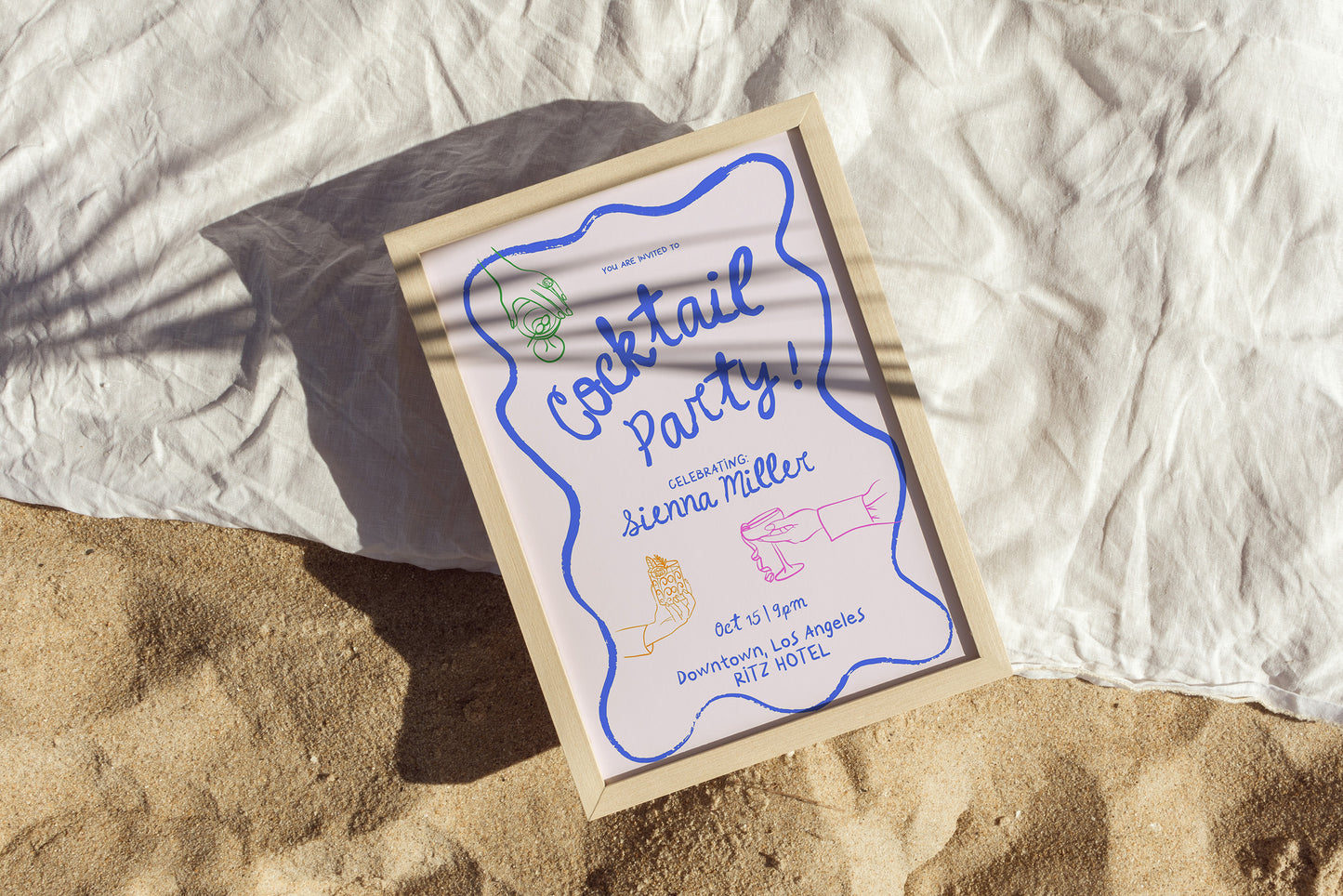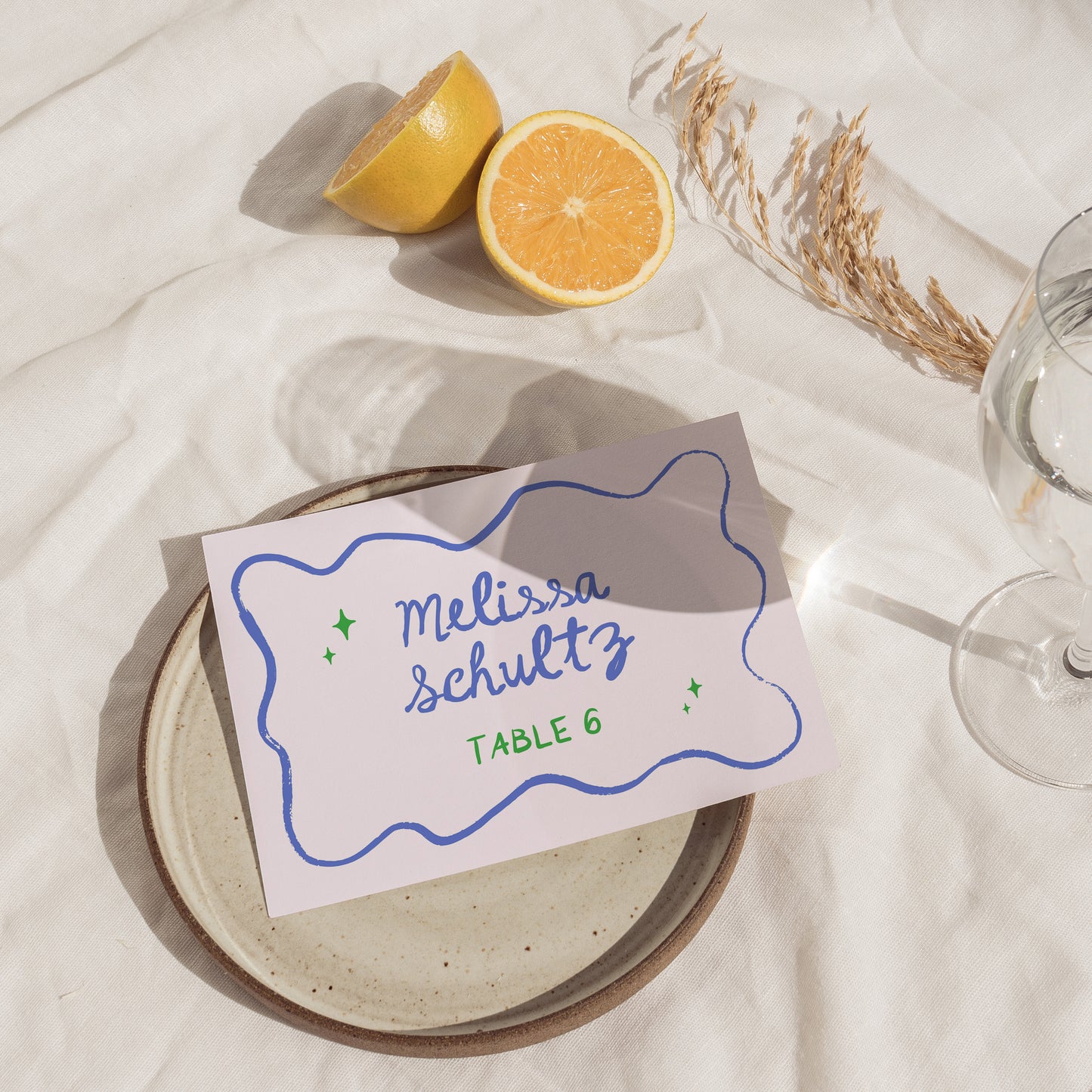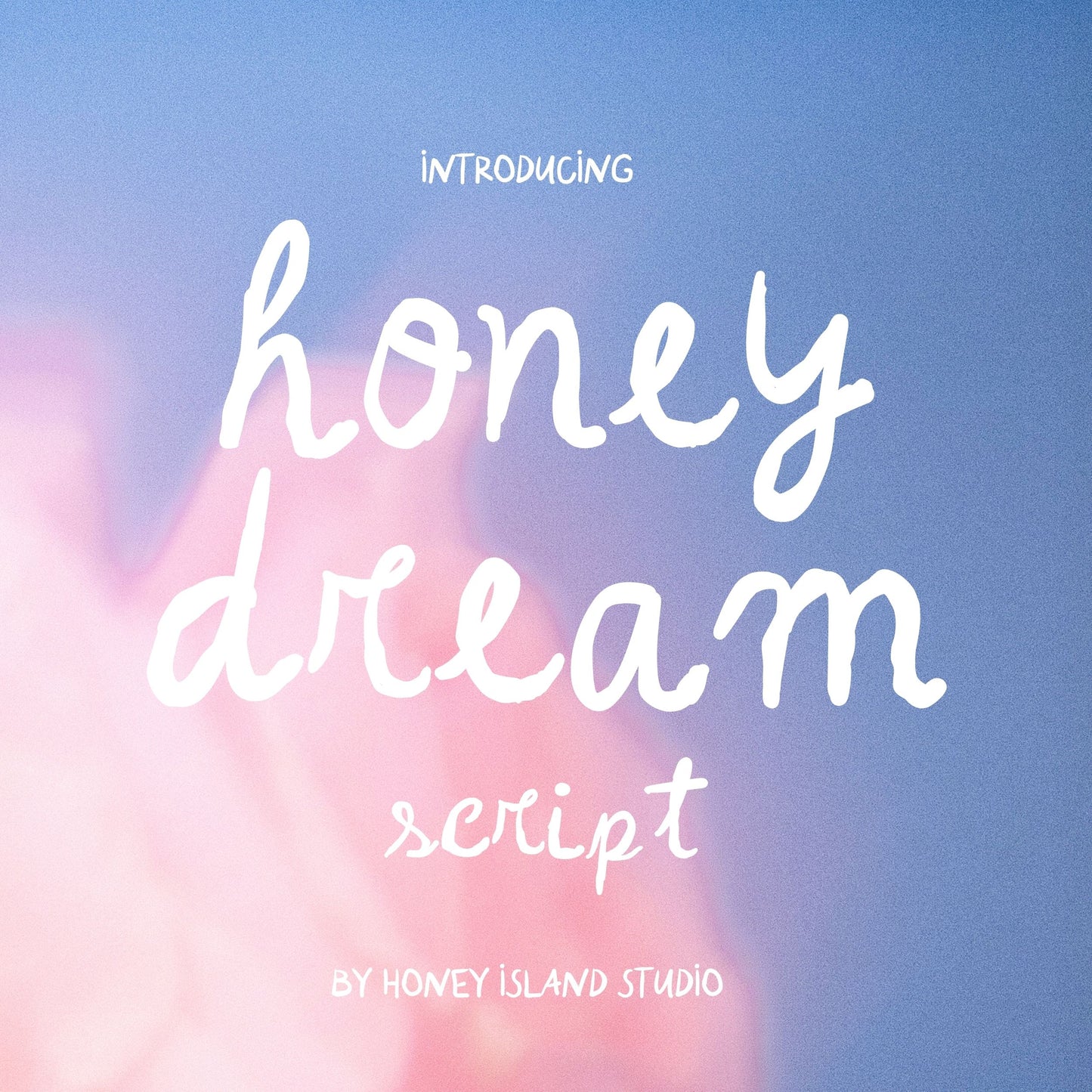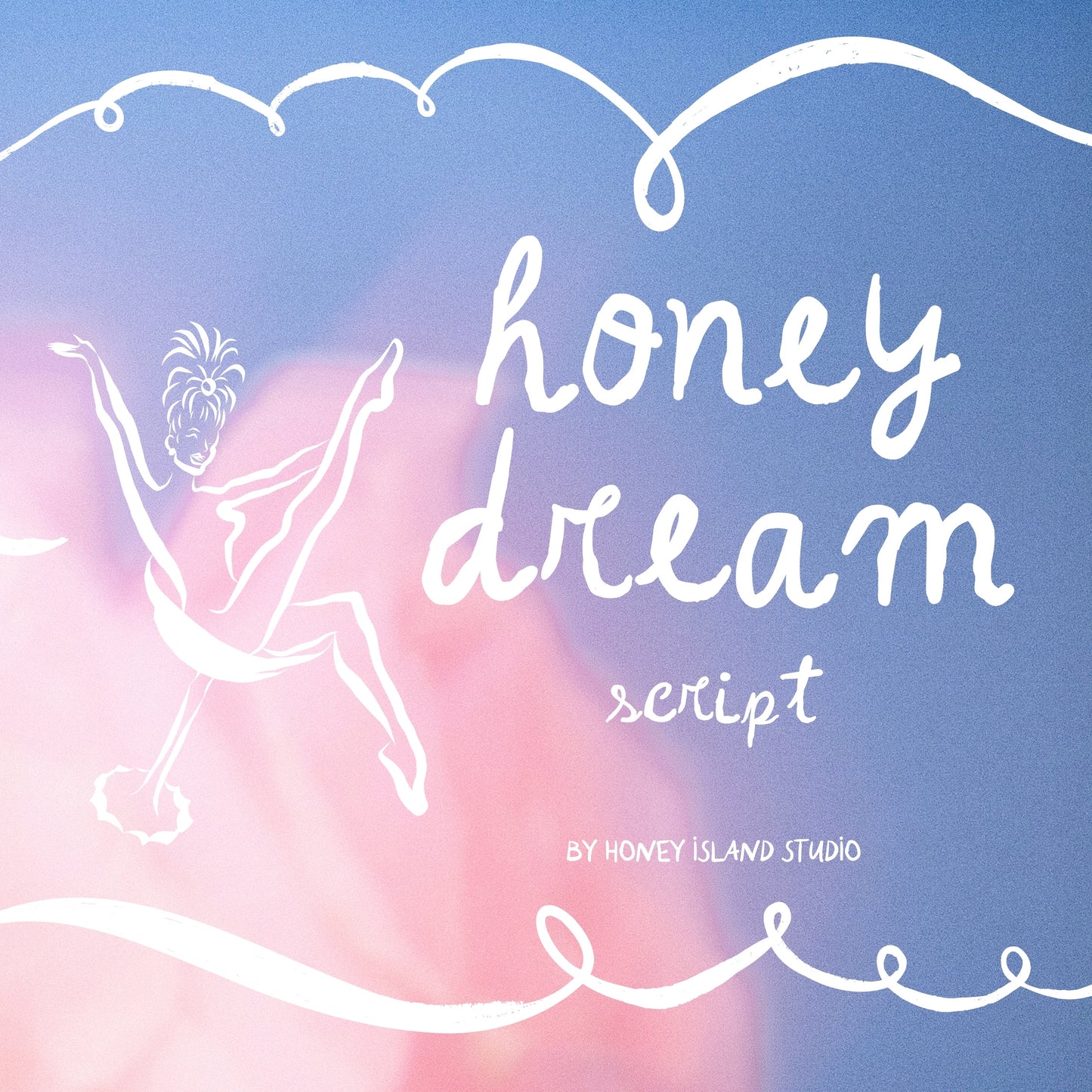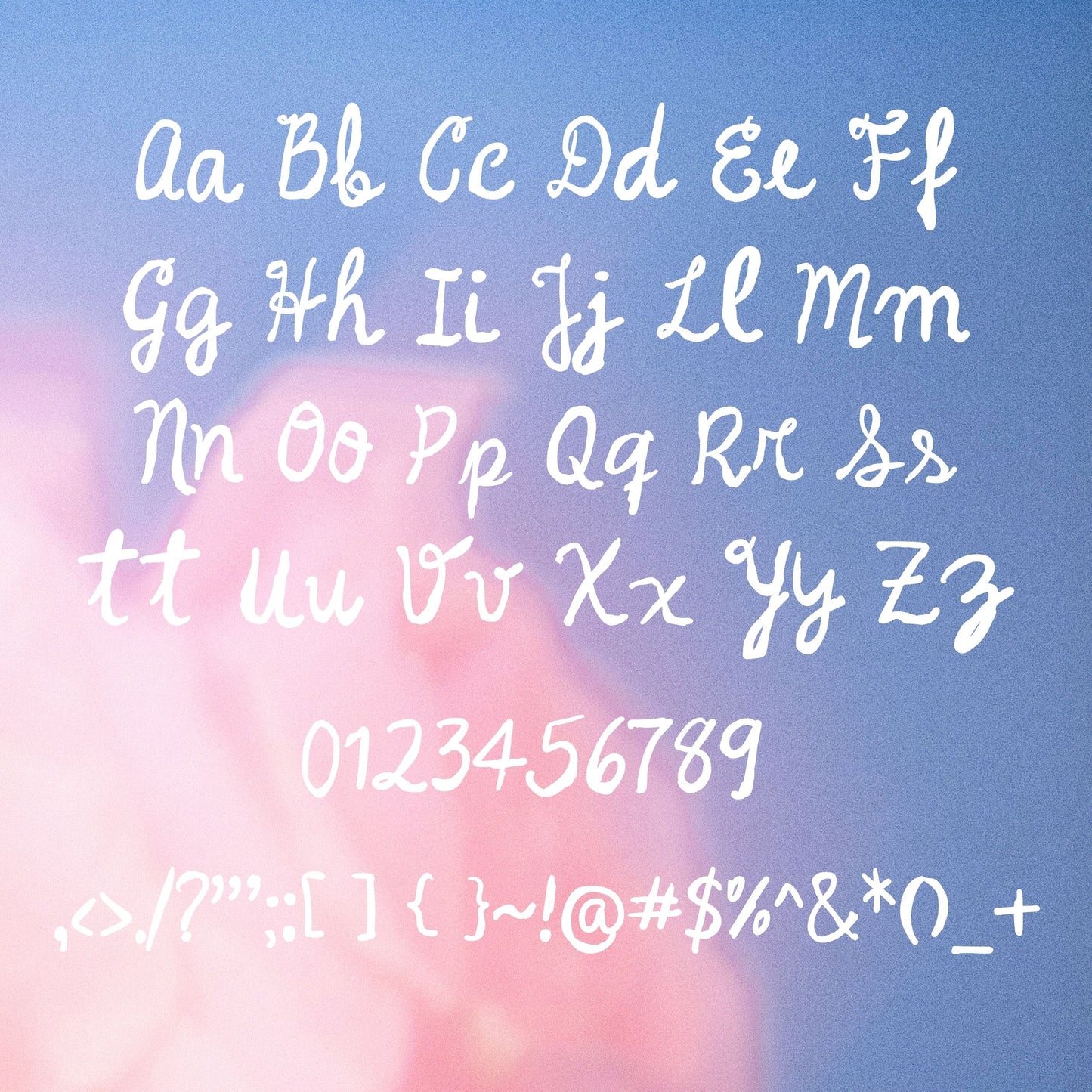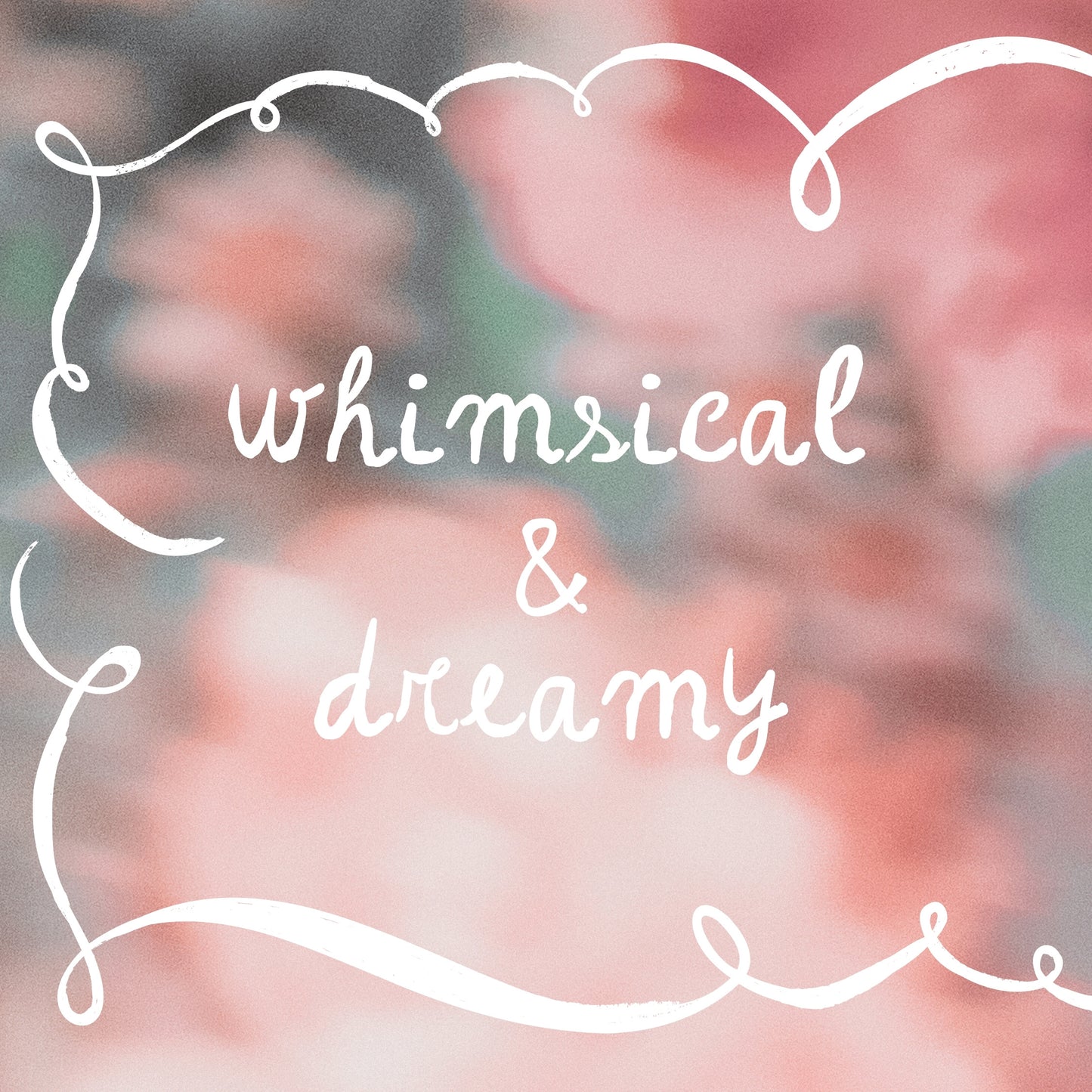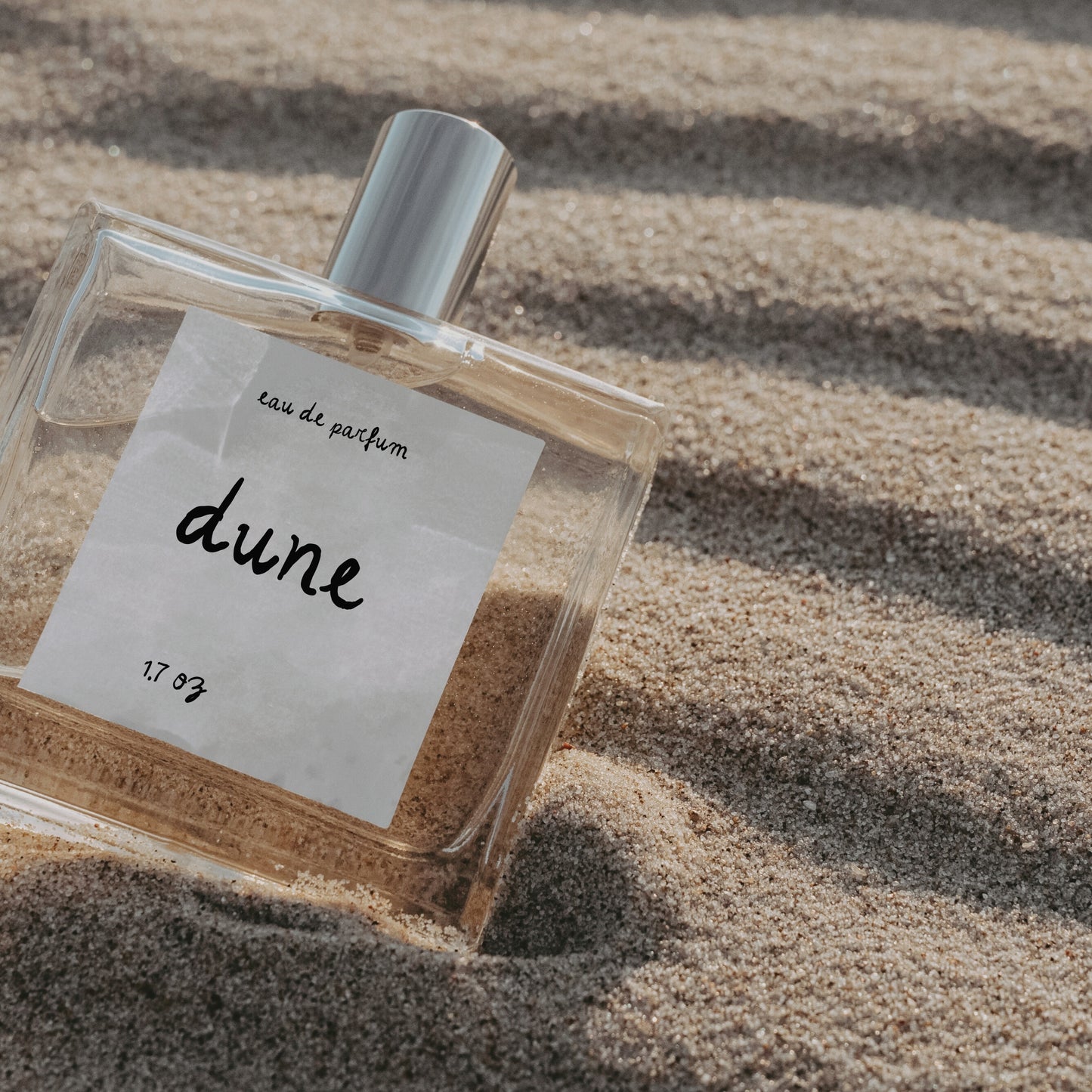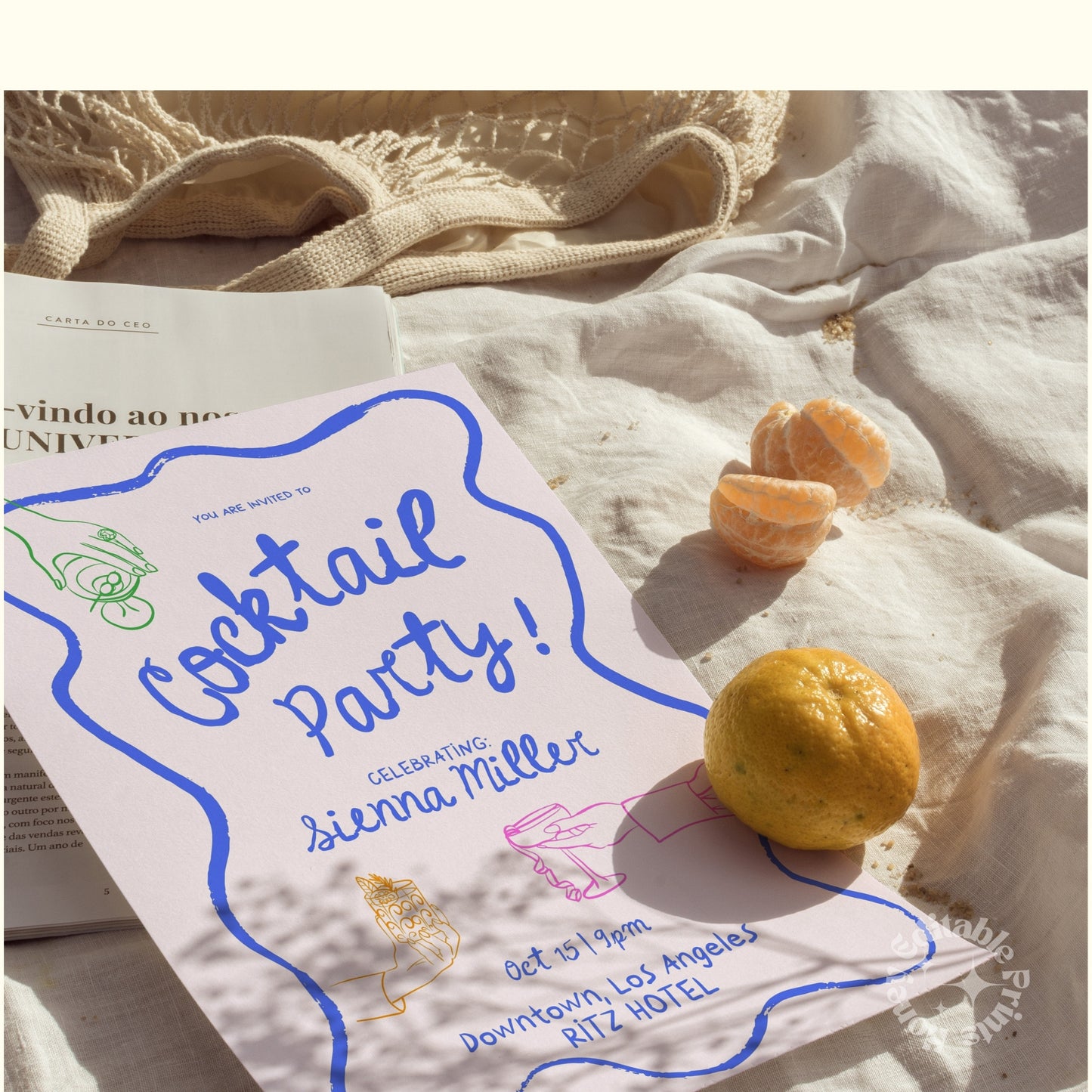
Honey Dream Script Whimsical Handwritten Font
Honey Dream Script is a whimsical handwritten font that exudes charm and creativity. With its playful curves and elegant strokes, this font adds a personal touch to any project.
Perfect for bachelorette and wedding invitations, greeting cards, and branding, Honey Dream Script captures the essence of carefree joy and artistic flair, making it an ideal choice for designs that need a friendly, inviting vibe.